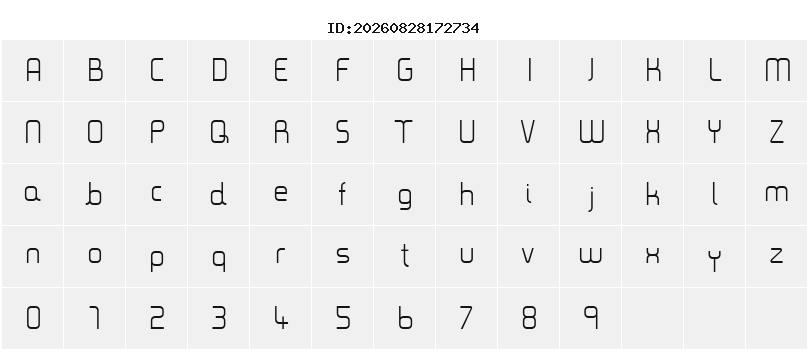
Timea Preview
• Font Name: Timea
• Full Font Name: Timea
• PostScript Name: Timea
• Manufacturer: nils merkel
About Timea.ttf
Timea.ttf is a modern, elegant sans-serif font designed for ultimate readability and visual harmony. Perfect for branding, headlines, web design, and print materials.